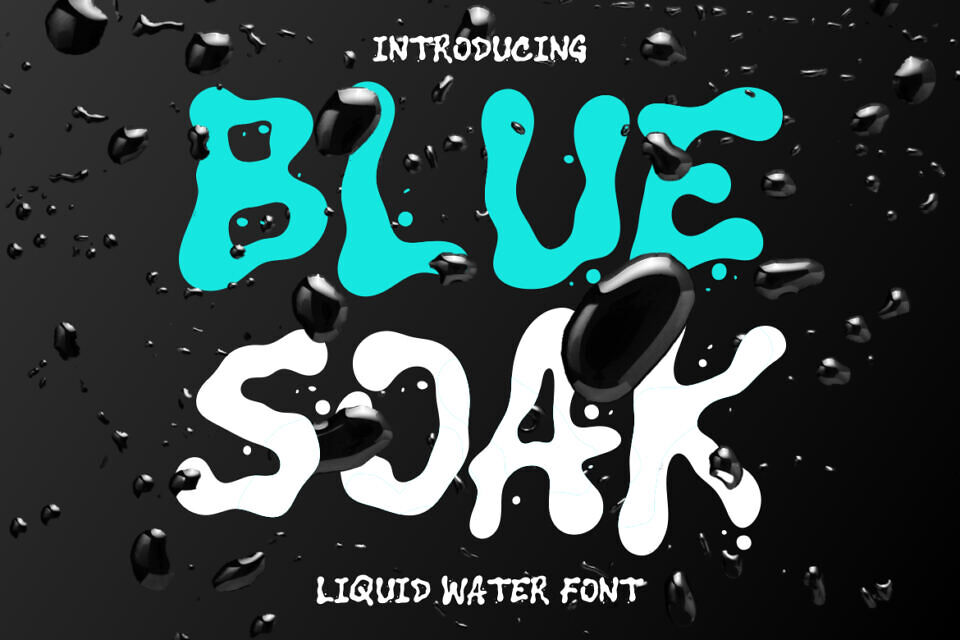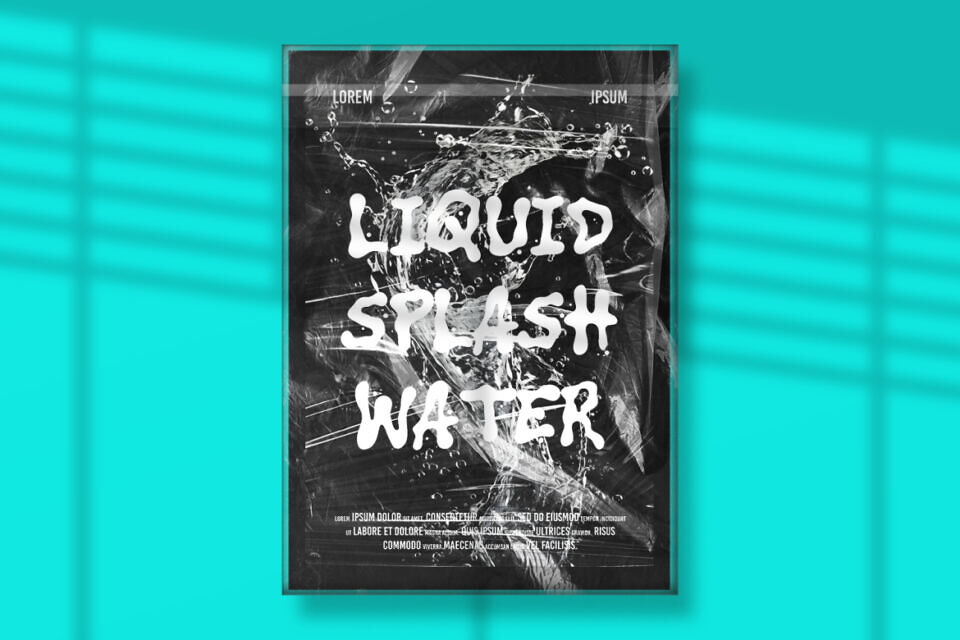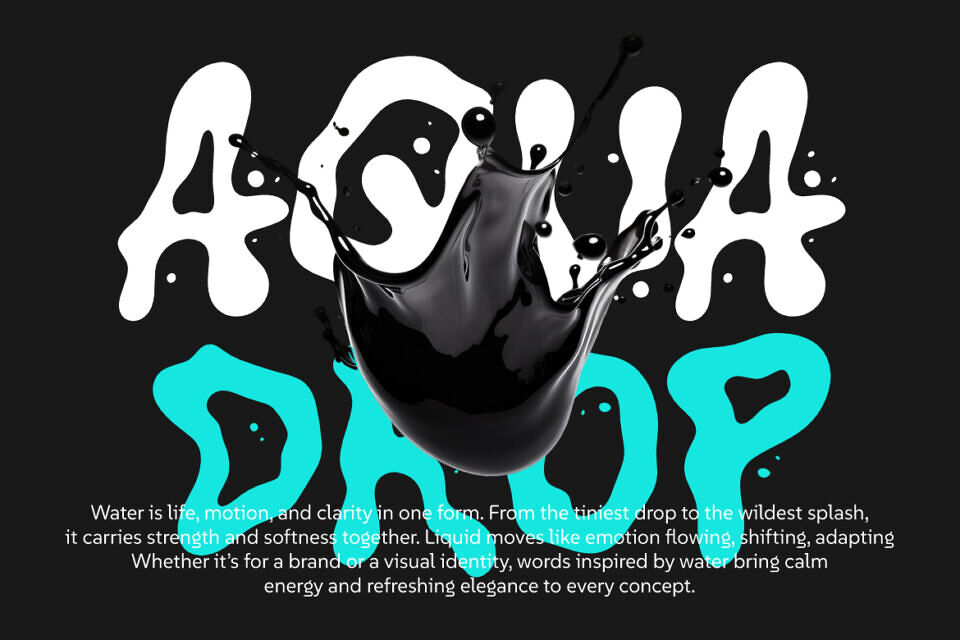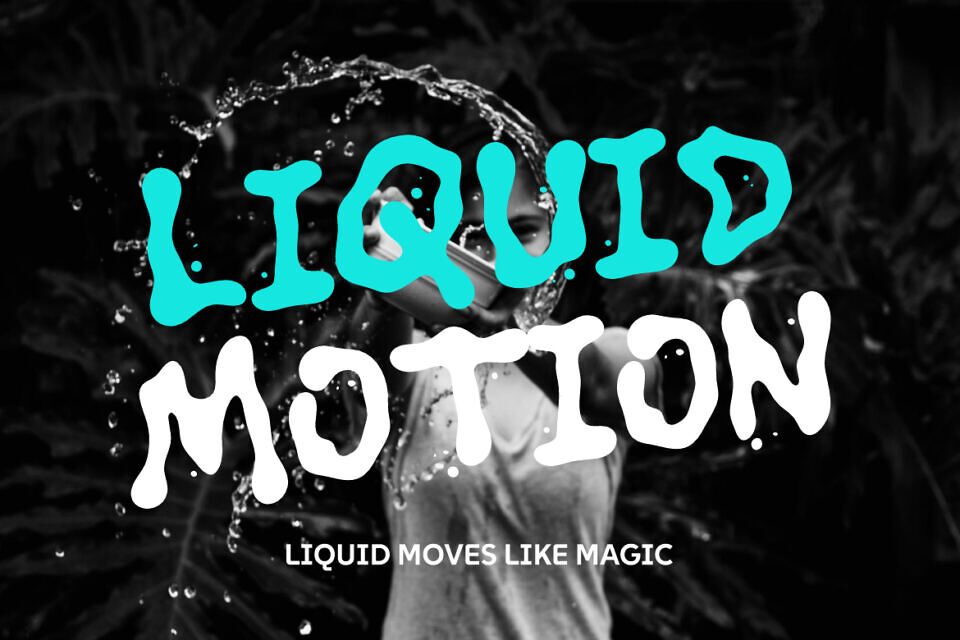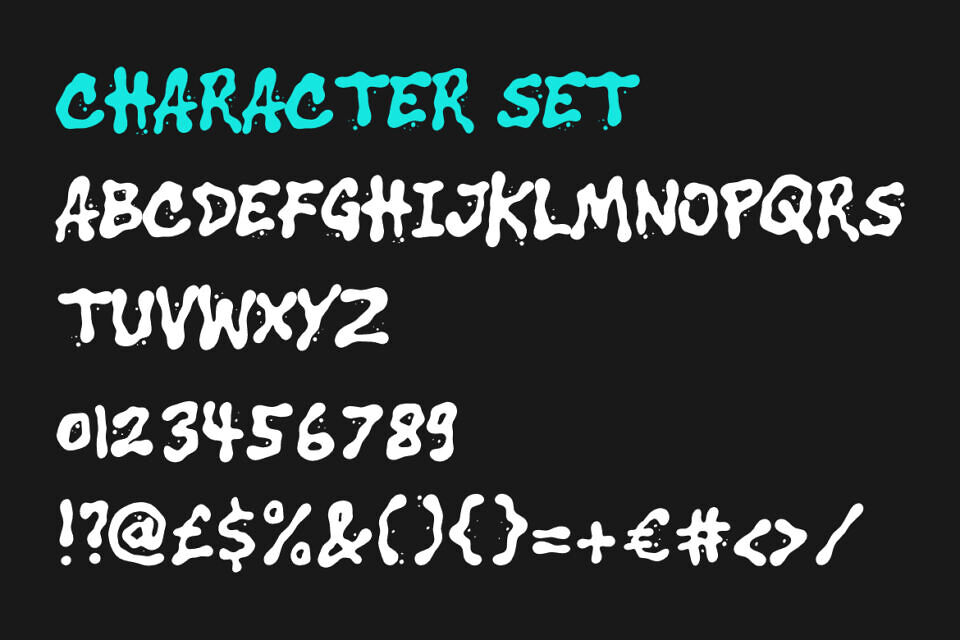
Blue Soak Font
Blue Soak Display Water Font is a creative typeface that captures the essence of water in motion. Its bold, fluid characters mimic the organic flow of drops and splashes, giving every word a sense of movement and life. Each letter feels hand-formed from liquid, blending playful irregularities with a strong, readable structure.
The font combines fun, expressive design with a natural flow, making it ideal for projects that require energy and creativity. The watery texture of the shapes creates a dynamic visual rhythm, perfect for drawing attention in bold headlines.